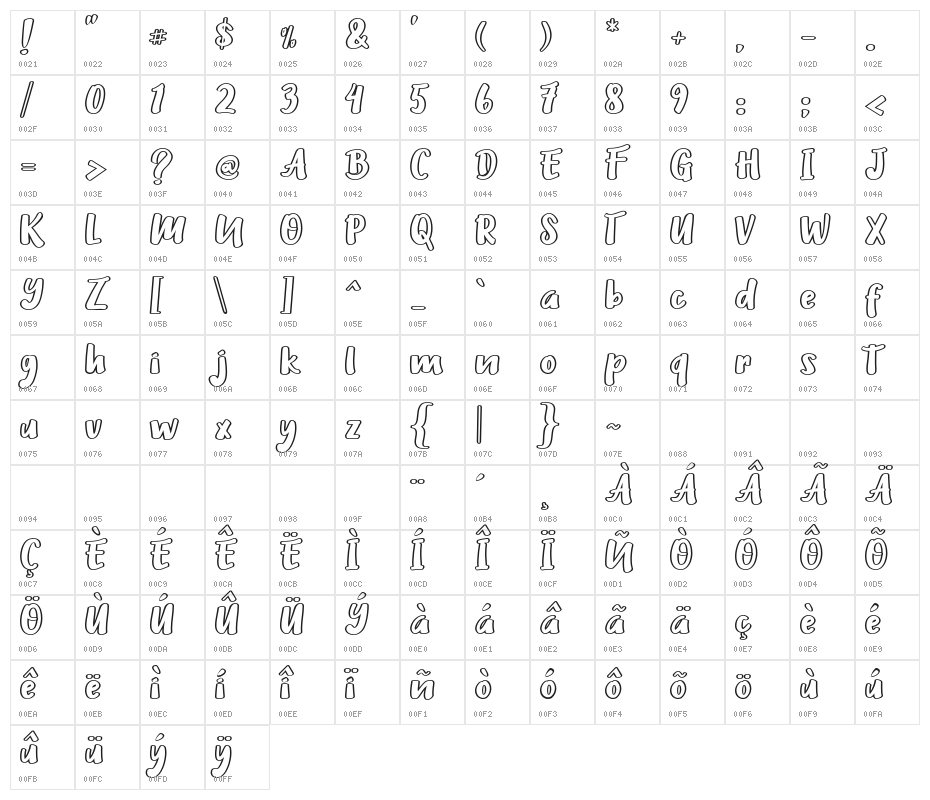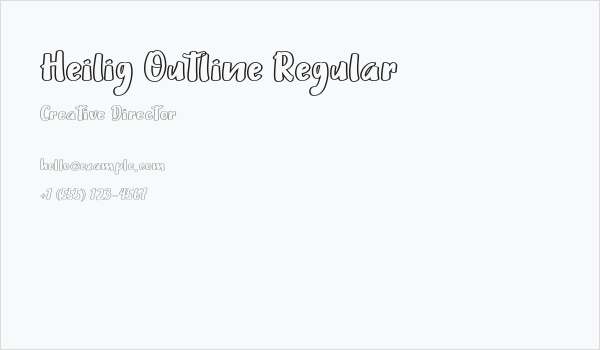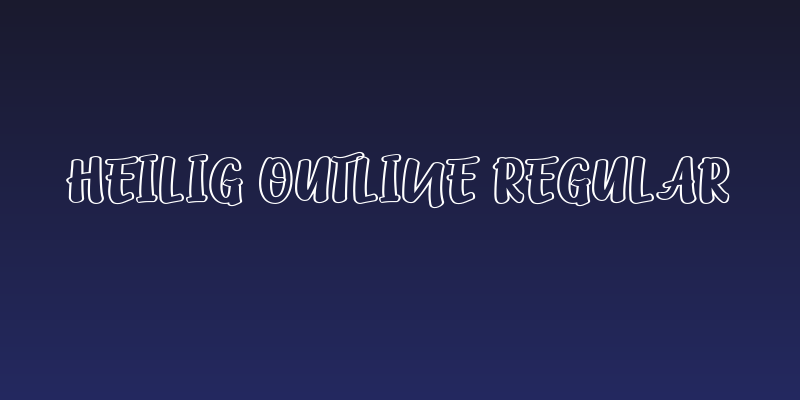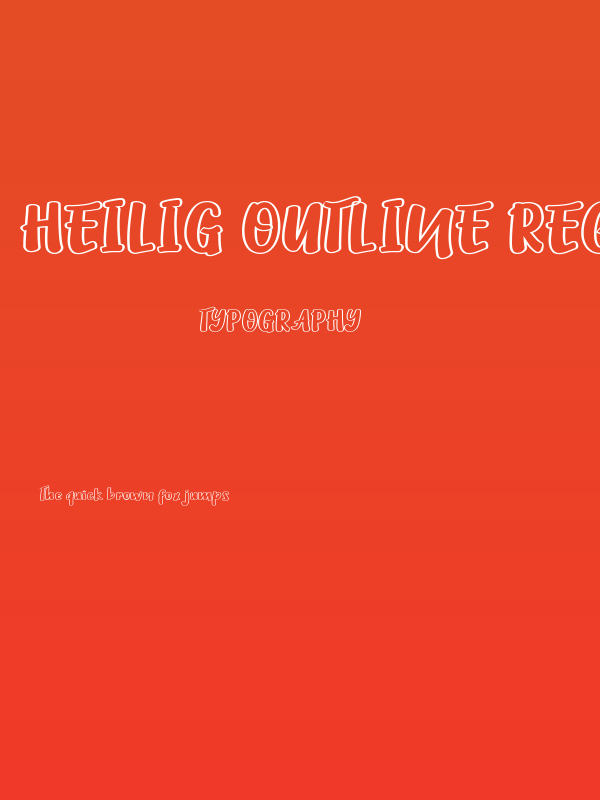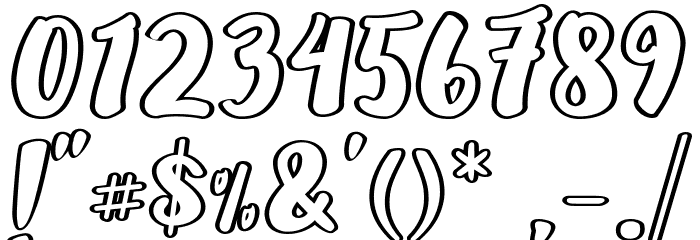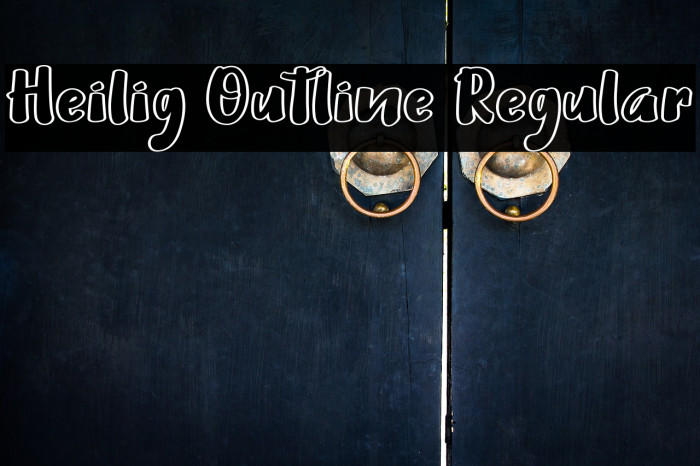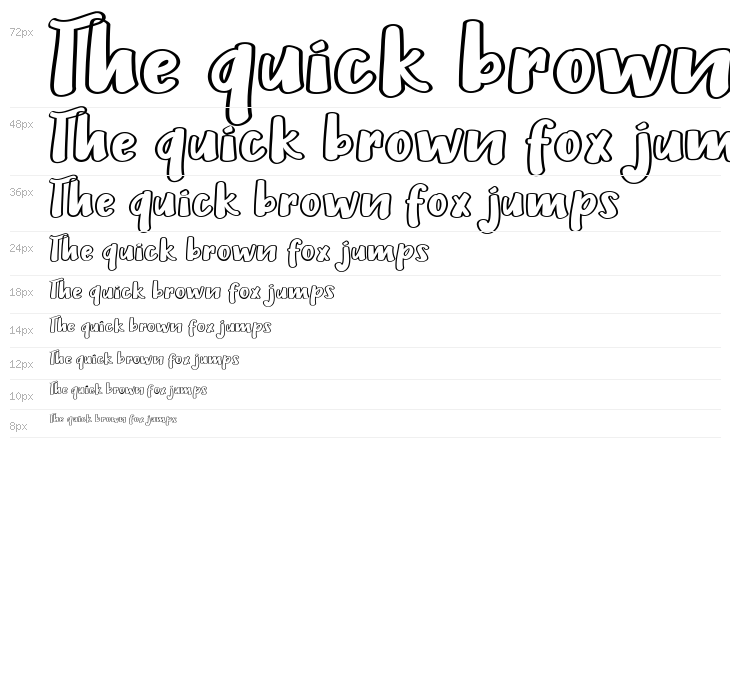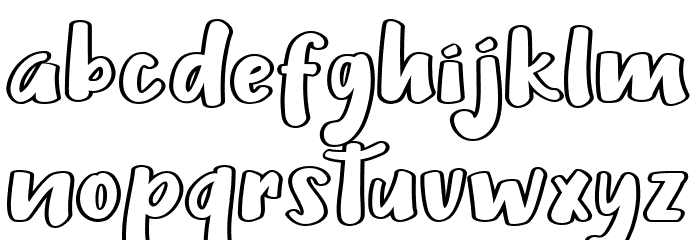
Heilig Outline Regular Font
Heilig Outline Regular Description
This font features a playful and bold outline style, characterized by its thick, uniform strokes that create a hollow effect. The letters are rounded and slightly slanted, giving them a casual and friendly appearance. The uppercase and lowercase characters maintain a consistent style, with the lowercase letters being slightly smaller and more compact. The numerals and special characters follow the same design principles, ensuring a cohesive look across all elements. This font is highly legible and stands out due to its unique outline, making it suitable for eye-catching designs.
| Proposed Projects | Ideal for posters, headlines, children's books, and playful branding projects. |